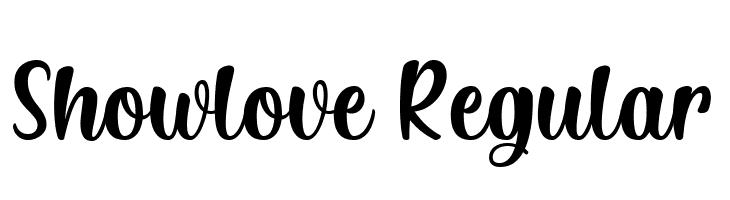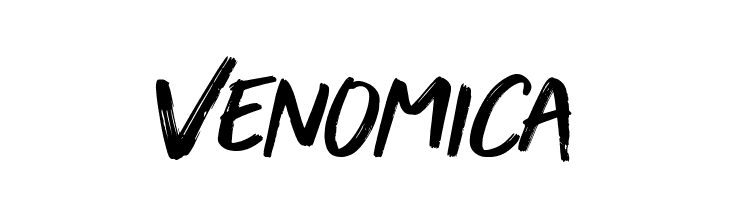
A playful, casual handwritten font with an organic flow and friendly appearance.
A bold, brush-style font with dynamic, high-contrast strokes.
A lively and expressive script font with flowing, interconnected letterforms.
A dynamic and flowing script font with elegant, cursive letterforms.
An elegant, flowing script font with a sophisticated handwritten style.
A bold, intricate blackletter font with a gothic, medieval style.
A bold, playful handwritten font with flowing letterforms.
A lively and expressive handwritten font with fluid, dynamic strokes.
A bold, brush-style font with a dynamic, hand-painted look.
A playful, handwritten font with rounded, smooth letterforms.